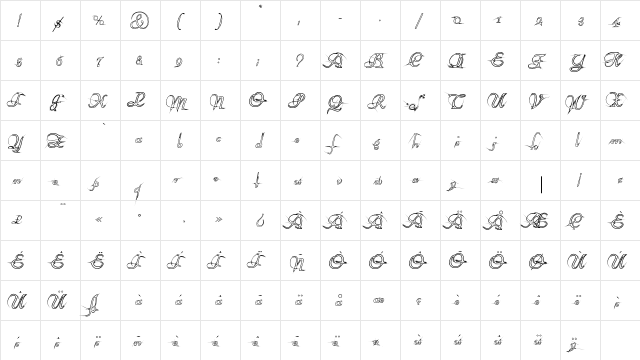
AraneaEF Outline
Design Context for AraneaEF Typeface
AraneaEF is built around its visual character rather than neutral utility — its distinctive forms are designed to make an impression at display sizes.
Font Pairing: Pair with a clean neutral sans-serif for body copy to let AraneaEF's character lead without overwhelming the composition.
Pro Tip: Treat AraneaEF as the centrepiece of your typographic hierarchy. One strong heading set in a decorative face can carry an entire layout.